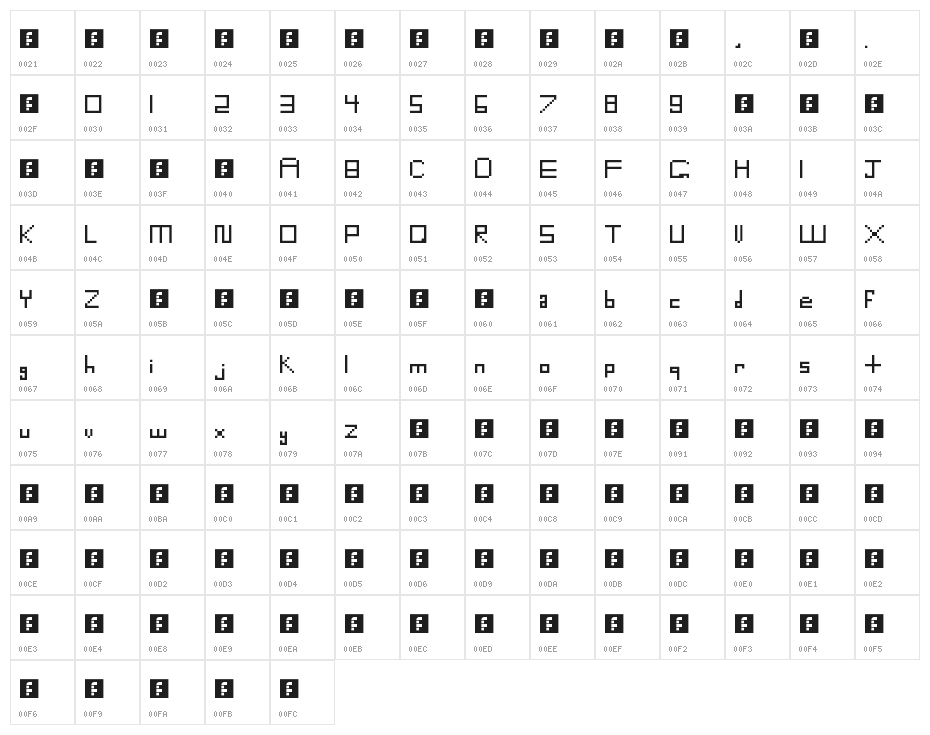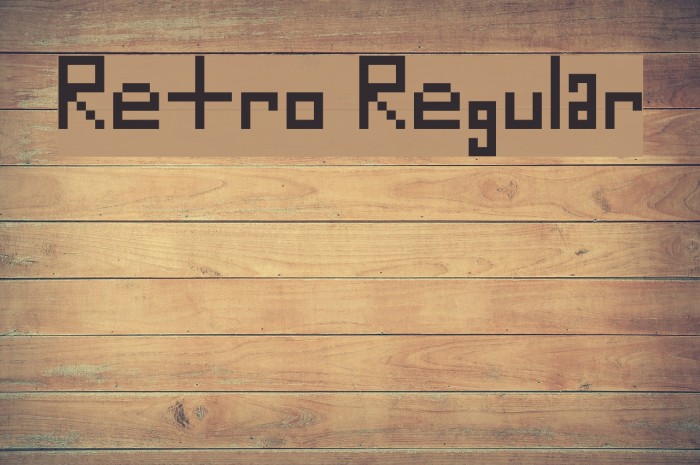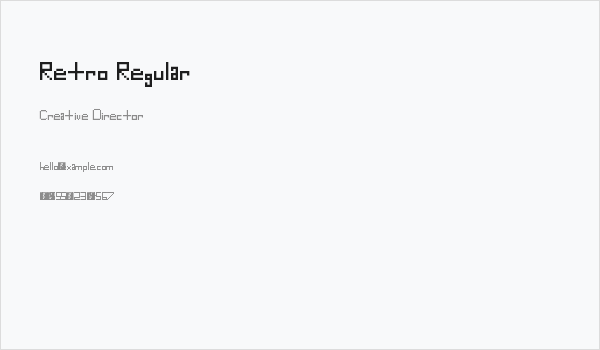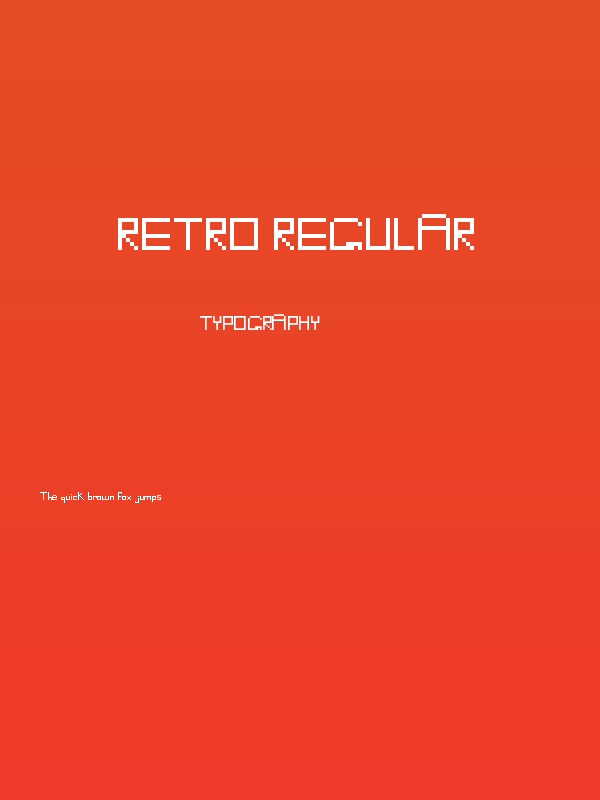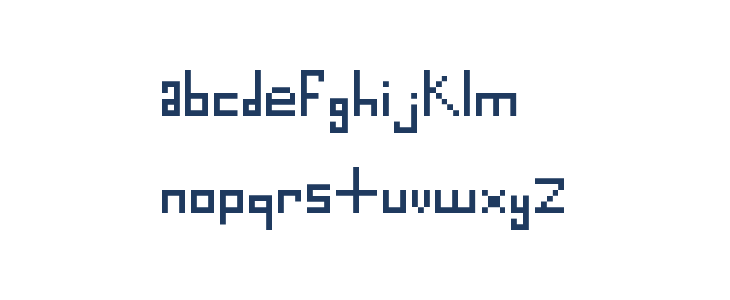
Retro Regular Font
Retro Regular Description
This font features a distinct retro aesthetic, characterized by its pixelated, blocky design reminiscent of early digital displays and video games. The characters are constructed with a uniform grid-like structure, giving it a nostalgic and playful feel. The uppercase and lowercase letters maintain a consistent geometric style, with sharp angles and straight lines. Numbers and special characters follow the same design principles, ensuring a cohesive look across all glyphs. This font is ideal for projects that aim to evoke a sense of nostalgia or pay homage to the digital era of the 1980s and 1990s.